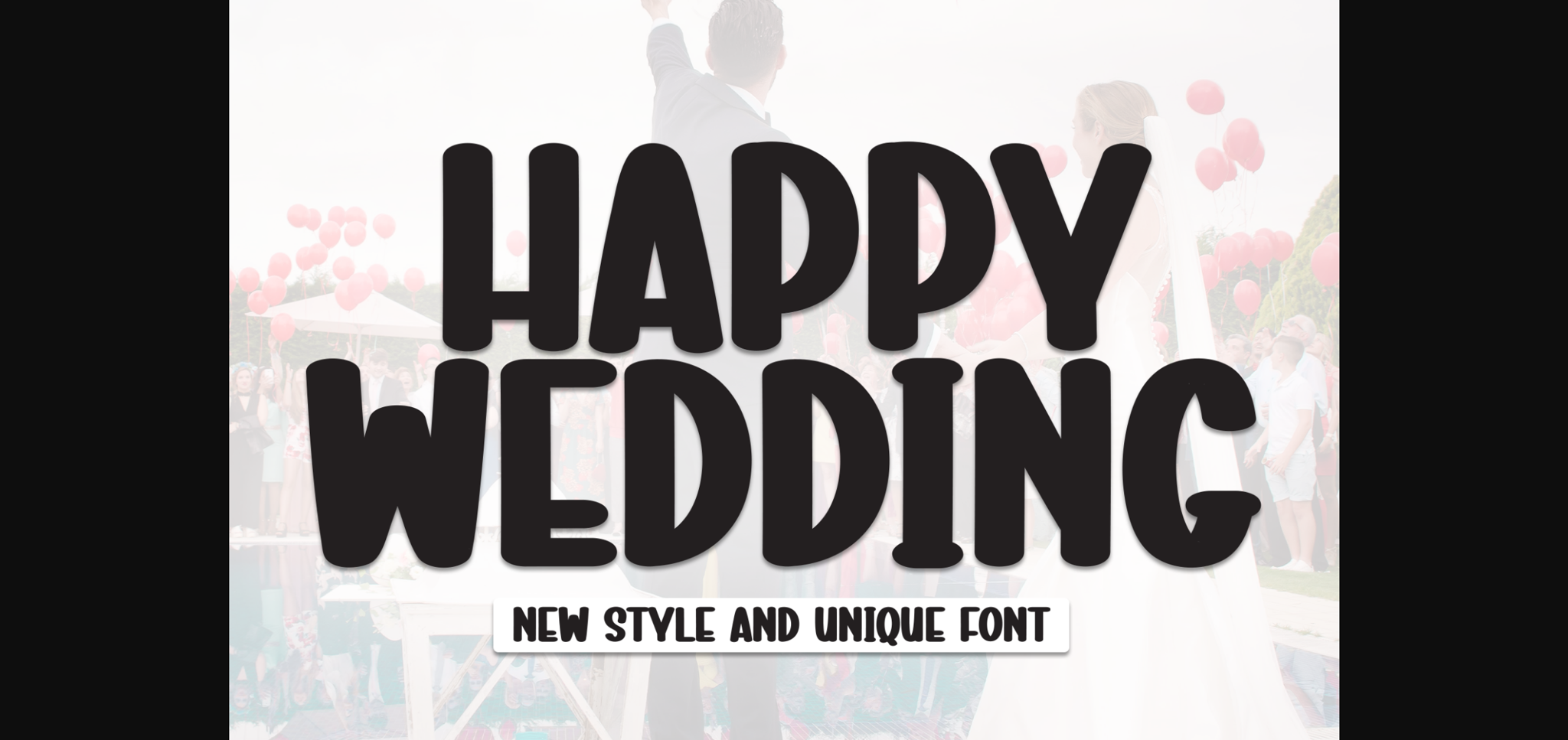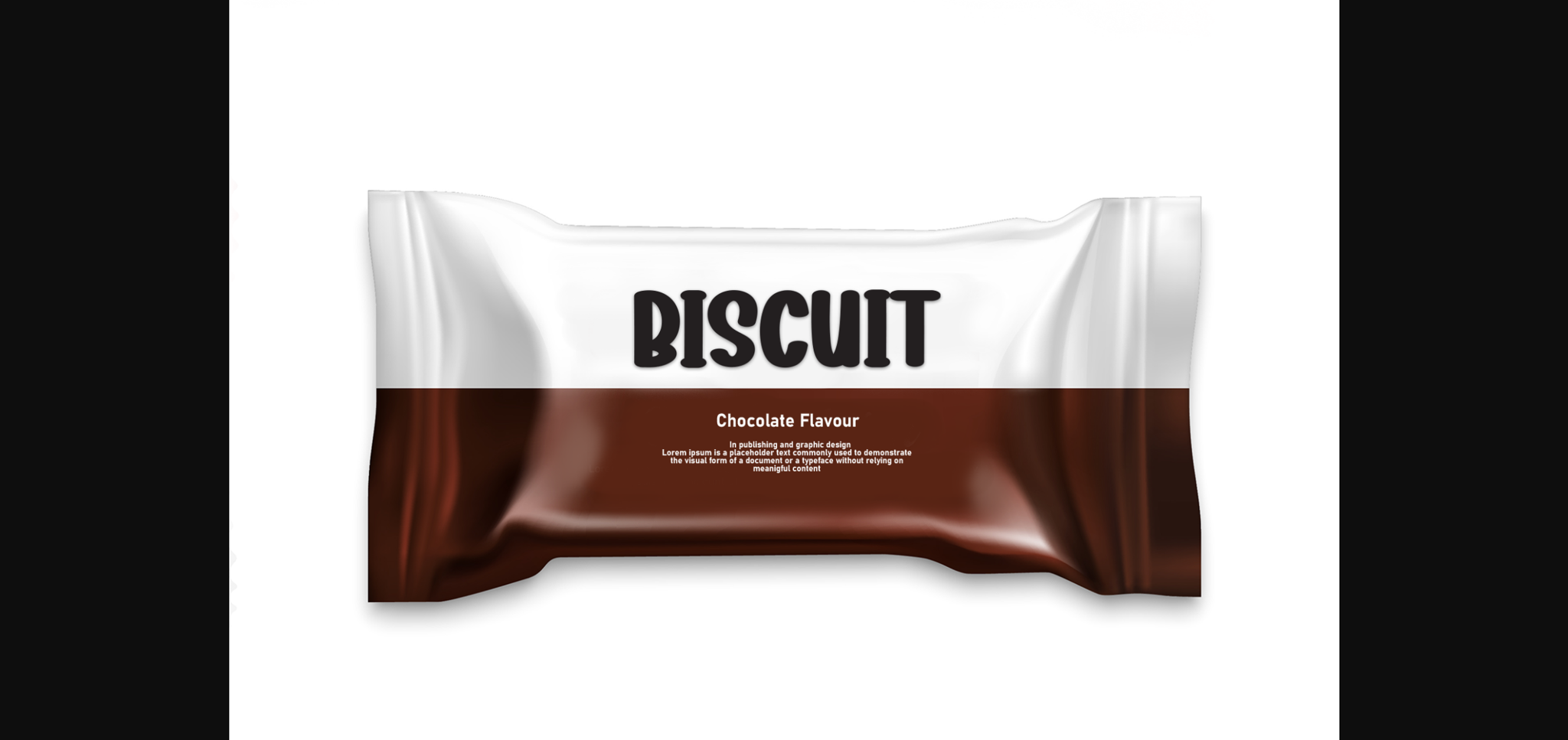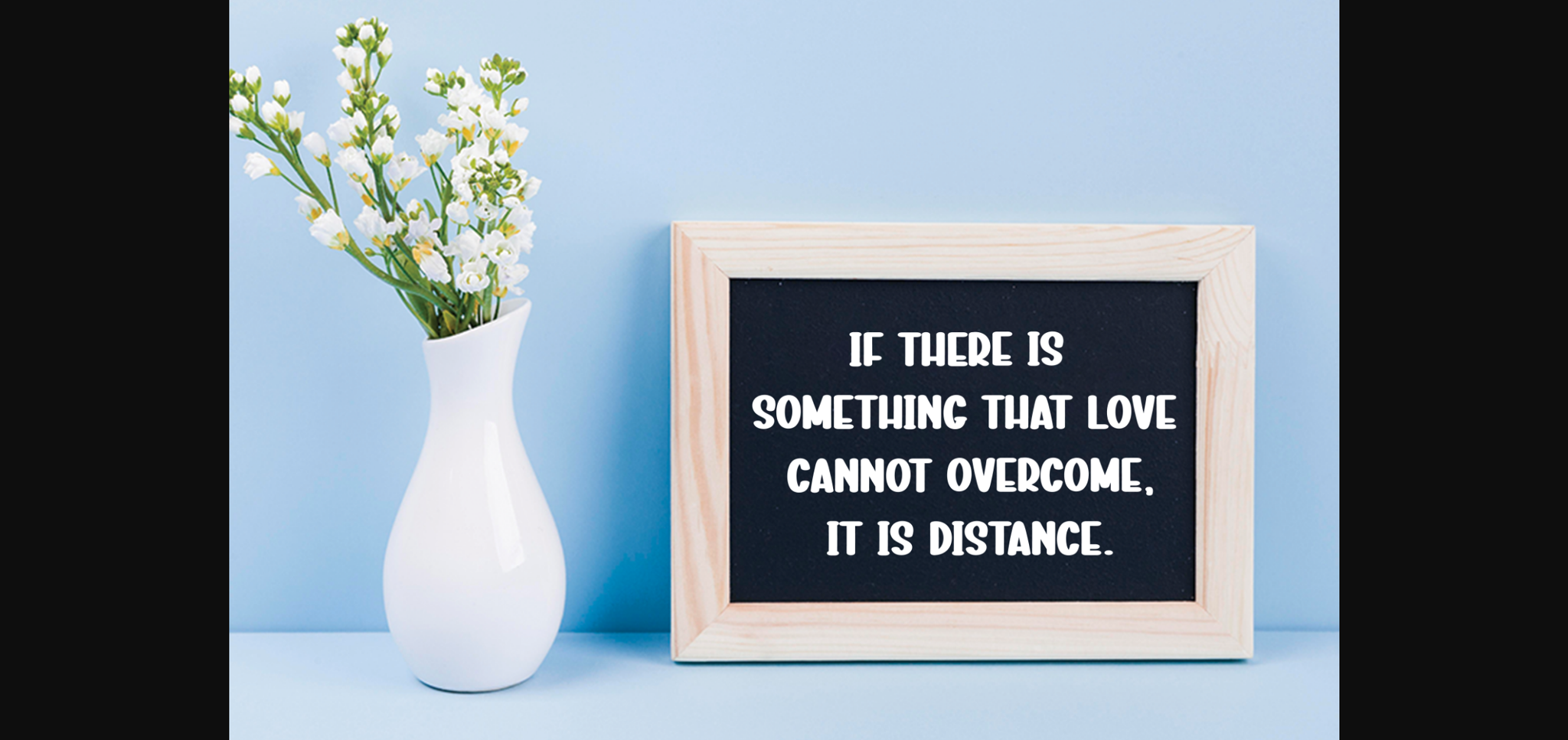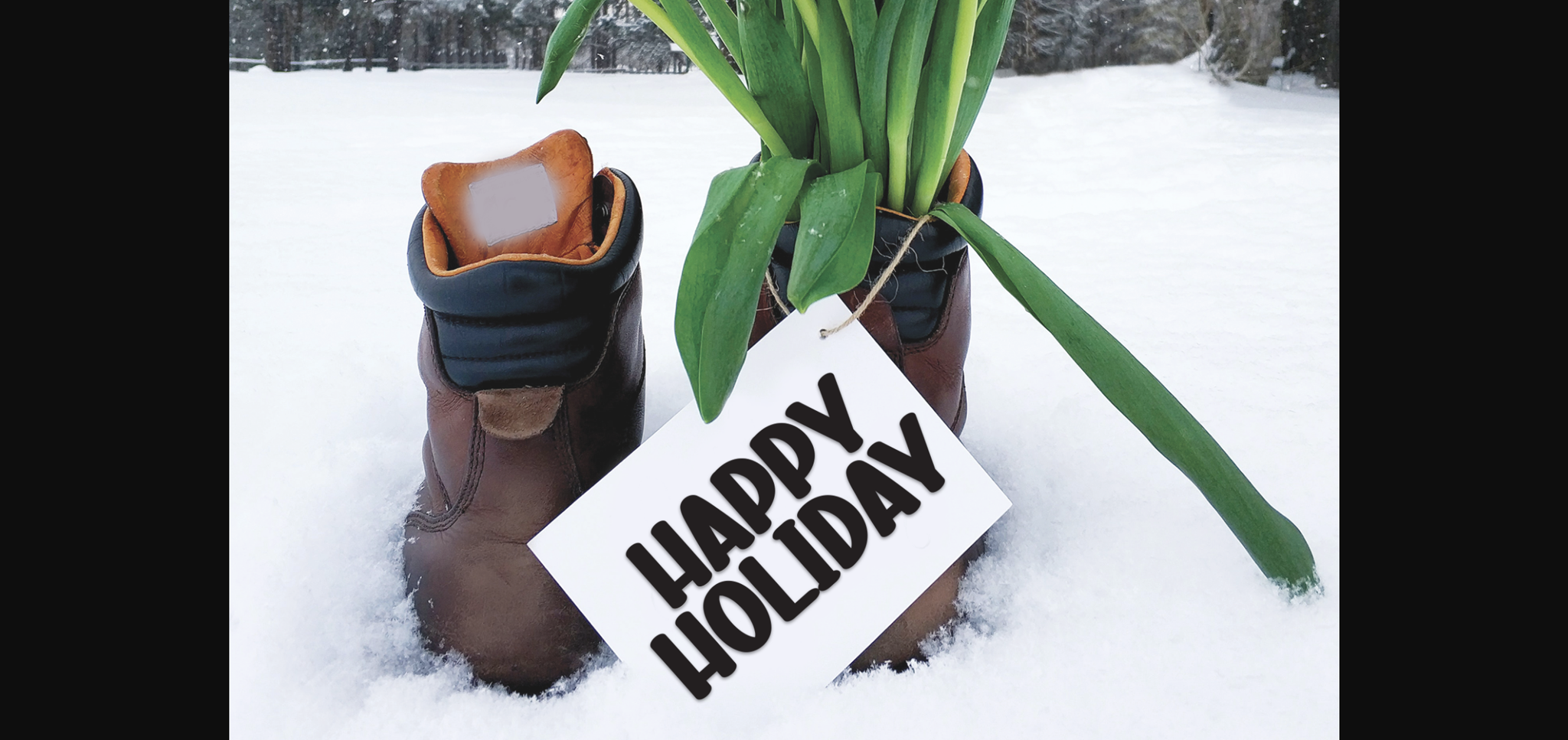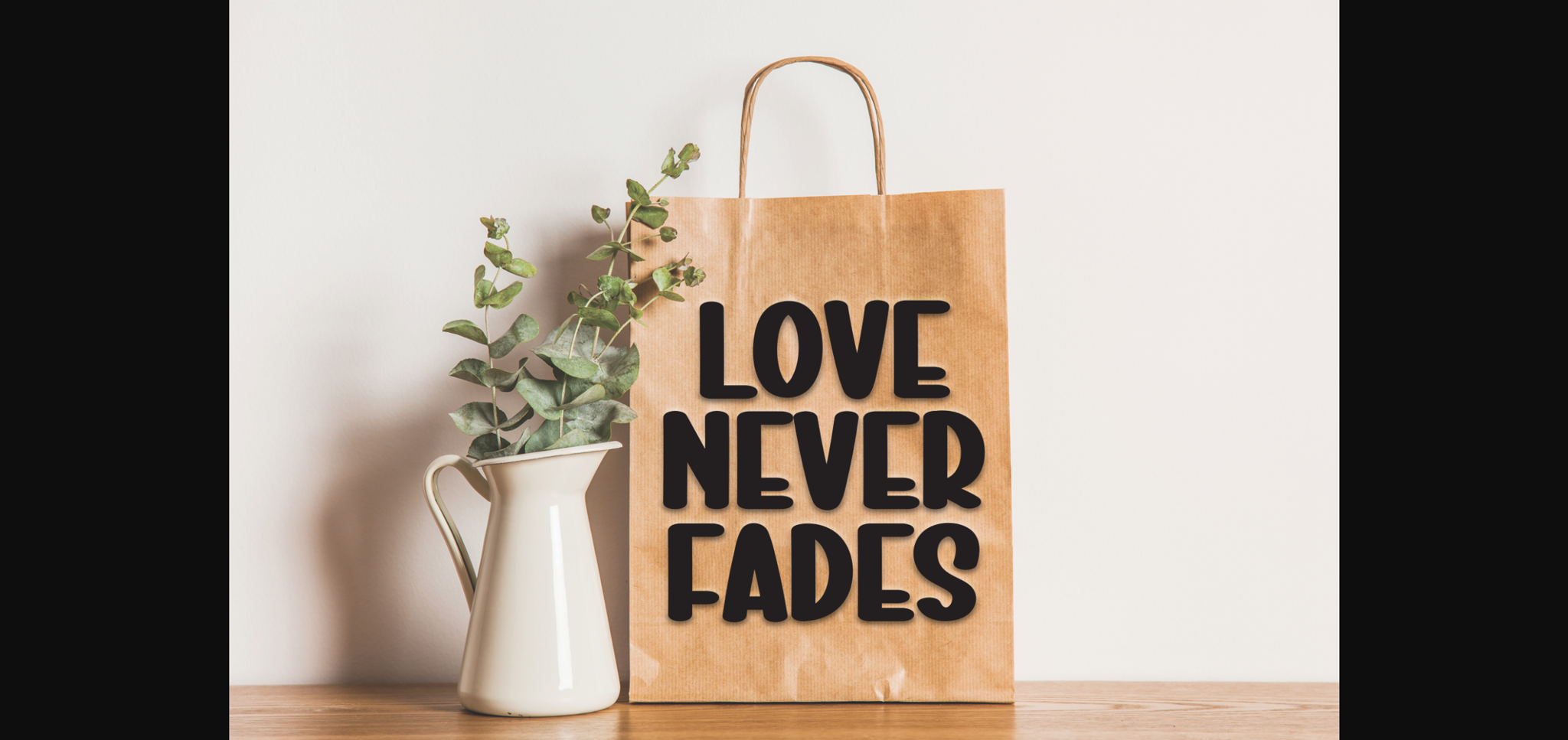
Happy Wedding Font
About Happy Wedding Font
Happy Wedding is a sweet and friendly sans-serif font. Cute and versatile this font is ideal for writing wedding invitations, cards, or any other design that might need a fun touch!